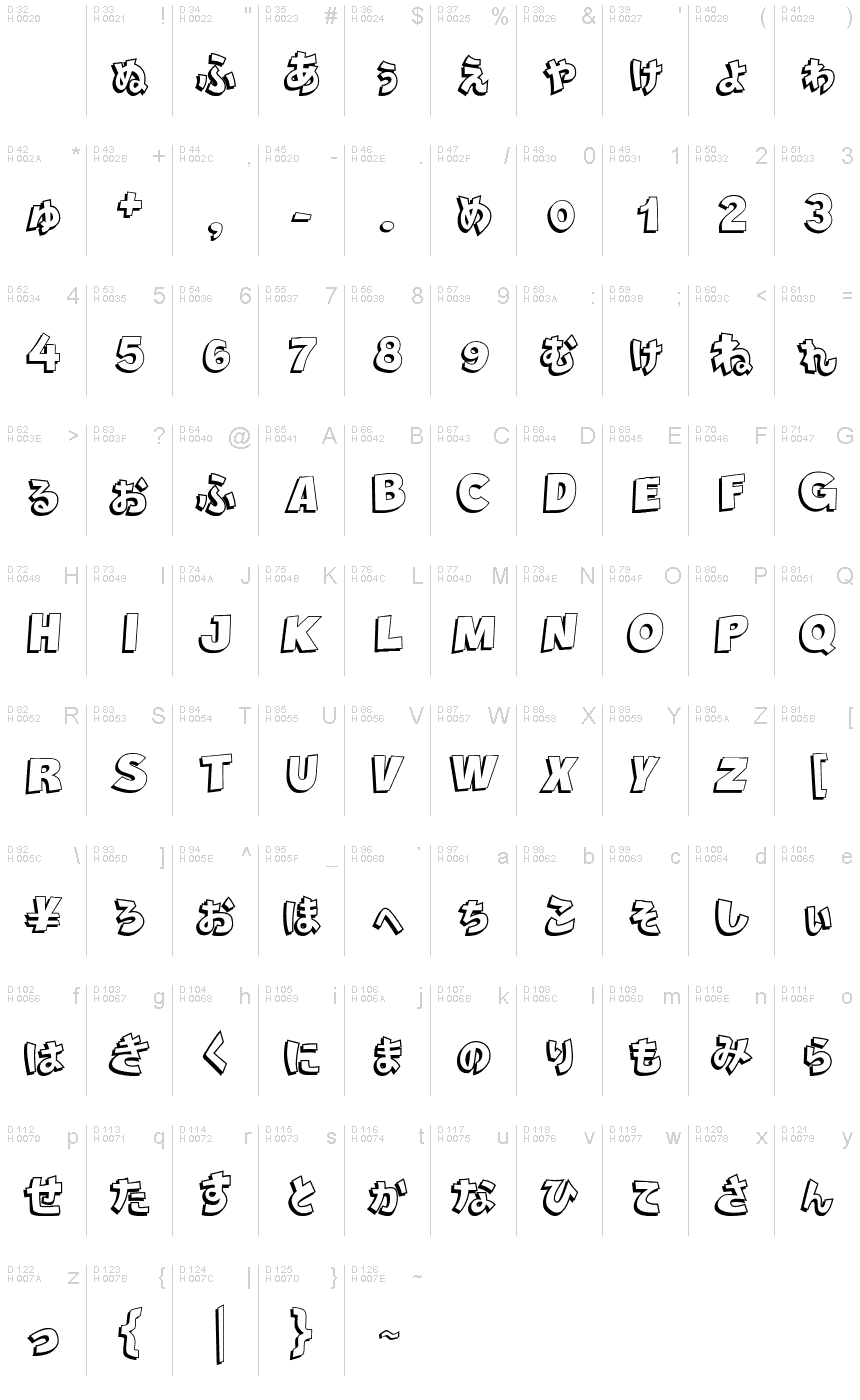
Nipponika Cartoon
Nipponika Cartoon, designed by Galdino Otten, is a bold and playful display font that combines capital letters with Japanese characters. With its whimsical and cartoonish style, this font is perfect for a wide range of creative projects. Use it to add a fun touch to children's books, comic strips, animated videos, or even as a logo for a Japanese-themed restaurant. Nipponika Cartoon will bring an imaginative and vibrant feel to any design, making it suitable for anything from branding to packaging and beyond. Let your creativity run wild with this lively typeface!